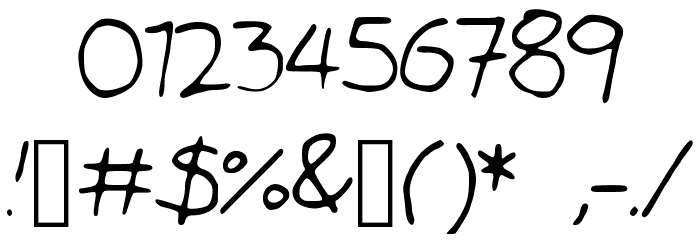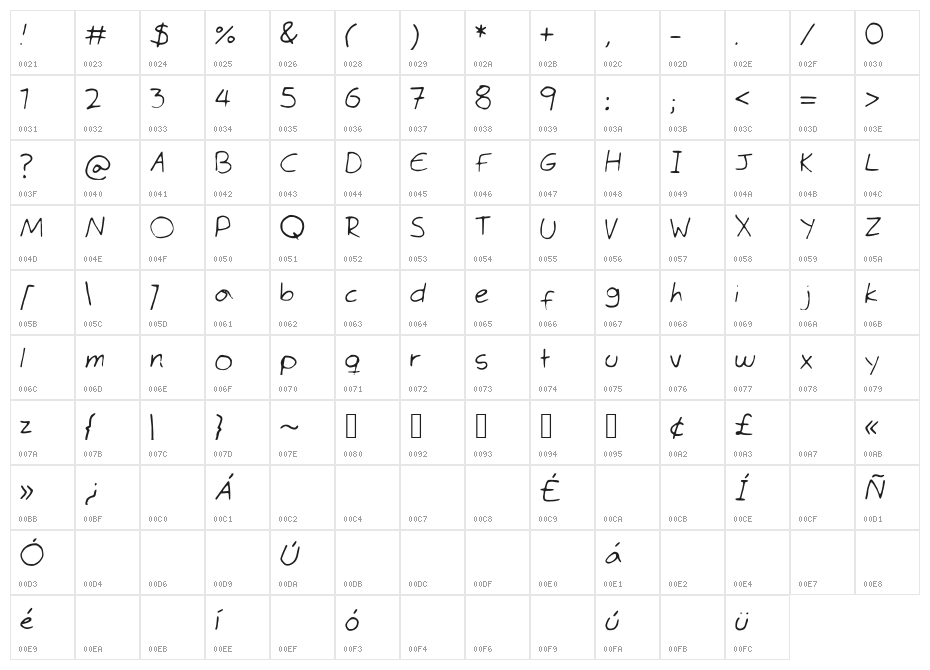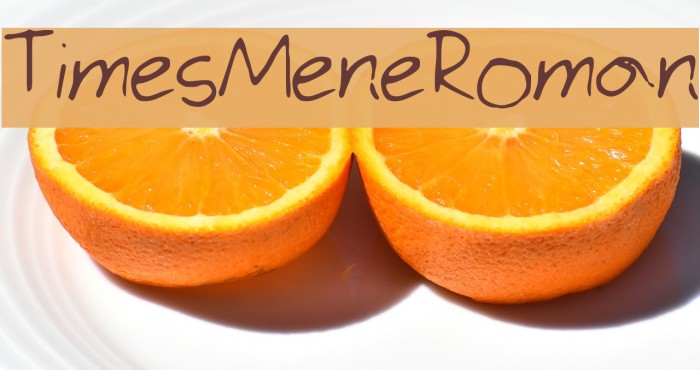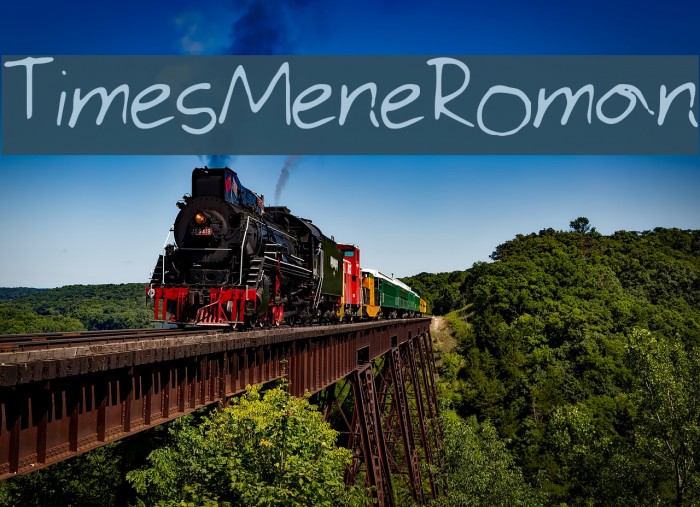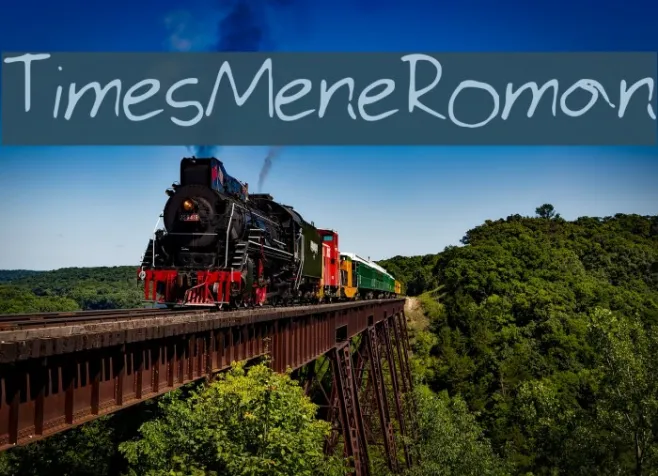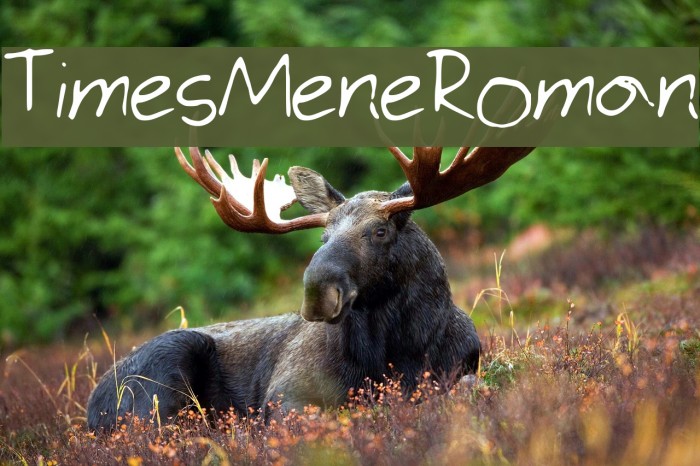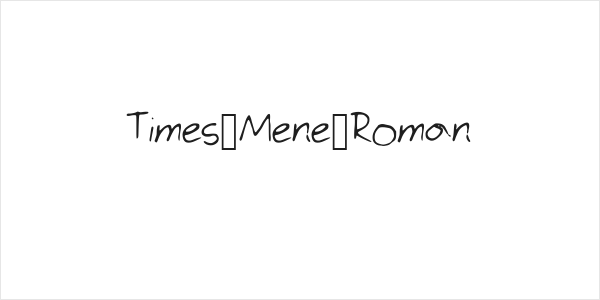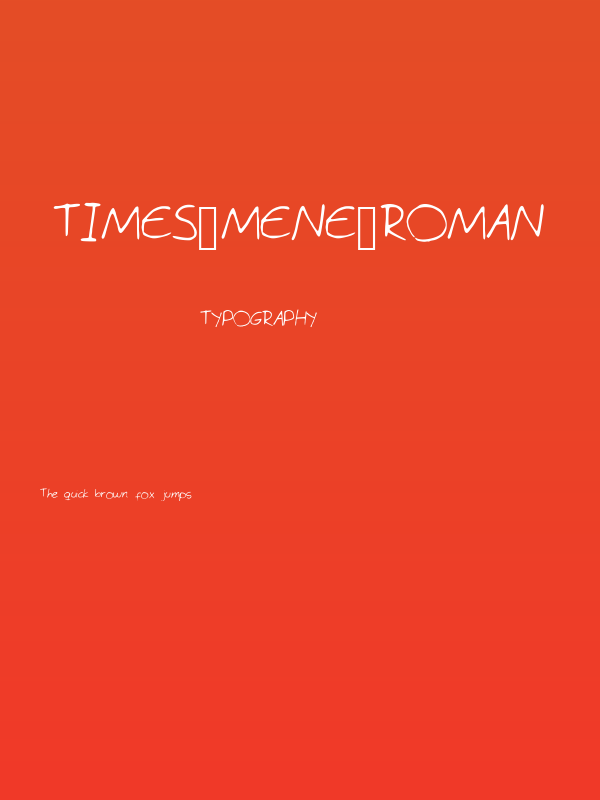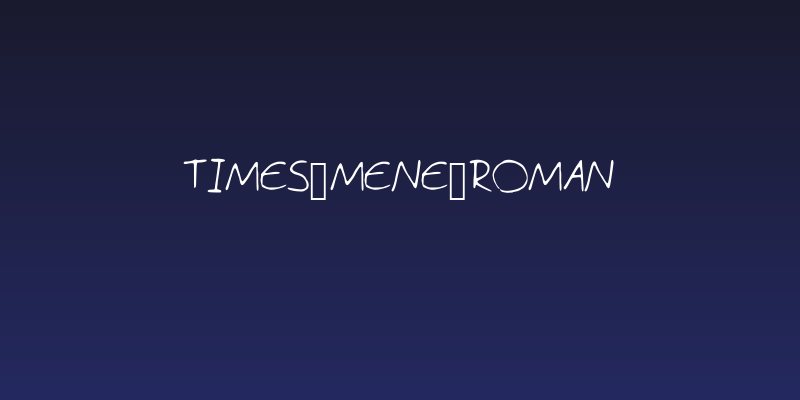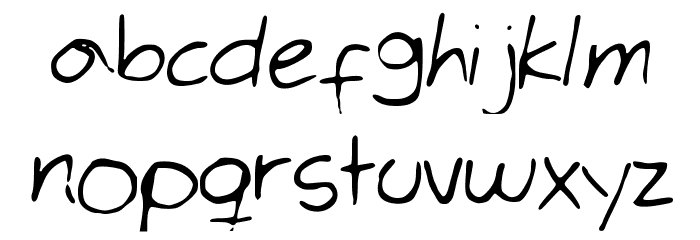
Times_Mene_Roman Font
Times_Mene_Roman Description
This font exhibits a playful and casual handwritten style, characterized by its irregular strokes and organic flow. The letters have a natural, slightly uneven appearance, giving them a personal and informal touch. The uppercase and lowercase letters maintain a consistent style, with rounded edges and varying stroke thickness that adds to the hand-drawn feel. The numerals and special characters follow the same aesthetic, ensuring a cohesive look across all glyphs. This font is ideal for projects that require a friendly and approachable tone, such as personal invitations, creative branding, or artistic posters.
| Proposed Projects | Ideal for personal invitations, creative branding, artistic posters, and casual designs. |